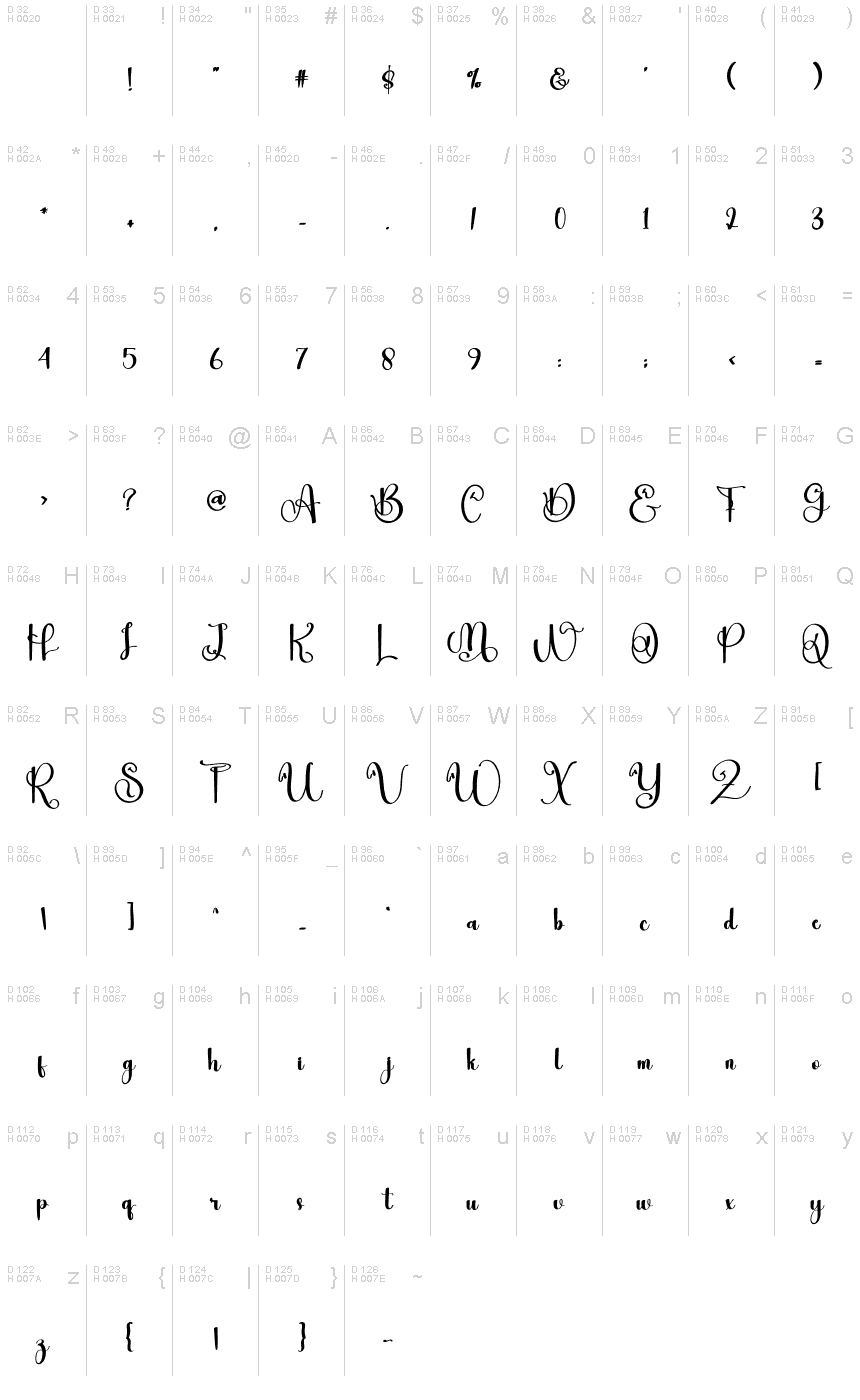
Rabbit
The Rabbit font, designed by Inermedia Studio, is a captivating calligraphy typeface that effortlessly adds elegance and sophistication to any project. With its semi-light weight, this font exudes grace and subtlety, making it perfect for wedding invitations, luxury branding, or high-end fashion magazines. Rabbit's fluid strokes and intricate details create a sense of timeless beauty and refined craftsmanship. Whether used in print or digital mediums, this versatile font will elevate your designs to new heights and leave a lasting impression on your audience.